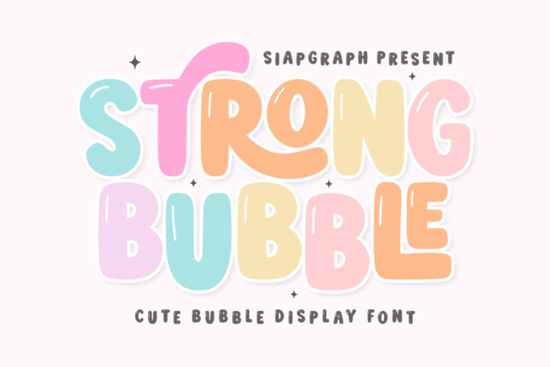
If you are designing graphics that need to bring joy immediately, typography plays a huge role. The Strong Bubble Font offers thick, rounded shapes that catch the eye without looking aggressive. It is ideal for anyone who needs to balance playfulness with clear readability. Whether you run a shop selling custom items or just enjoy making gifts for friends, having a typeface that works well across various materials makes your workflow smoother.
This specific font style features glossy highlights and chunky curves. Those design elements give it a modern yet friendly appearance. Many creators find that standard block letters feel too serious for certain projects, while thin script fonts might lose legibility when printed small. This typeface sits right in the middle, offering bold strokes that remain easy to understand even from a distance. Because it is crafted for high visibility, it translates well onto shirts, bags, and signs alike.
How can this typeface fit into my craft projects?
The versatility of this tool allows you to apply it to many different mediums. You will find it particularly useful when creating SVG cut files for vinyl plotters like Cricut or Silhouette machines. The clean construction means the cutter lines will follow the contours precisely, resulting in professional-looking decals. Personalized stickers are another major area where this style shines, especially for children’s items where cute visuals matter most.
Parents often look for decor that reflects their child’s personality in the home. Nursery wall art created with this face provides a backdrop that feels welcoming rather than stark. For seasonal events, think about how it performs during specific times of the year. If you are planning invitations for a birthday bash, the rounded edges echo the shape of balloons naturally. When summer parties roll around, swapping out standard text for something brighter can boost engagement.
Sometimes you might want to mix styles for a balanced layout. For example, if you prefer sharper angles for headers, you could pair this display face with a classic serif for body text. However, if you want a unified look, mixing it with other whimsical options can enhance the theme. You might compare the vibe here to a collection designed around sweet treats to see how different flavors affect your final composition.
- Personalized Stickers: Add names to lunchboxes or planners.
- Print-on-Demand Products: Upload directly to sites for apparel printing.
- Kids Party Decorations: Banners, cupcake toppers, and table numbers.
- Social Media Graphics: Create posts that stop the scroll.
What design aesthetics does it complement best?
Color choice matters as much as the font itself. Bright primary colors work exceptionally well because they reflect the energy inherent in the letterforms. When paired with pastel tones, it softens the message for gentler audiences. This approach is perfect for baby announcements or spring-themed events where optimism is key. If you are working on a project that requires a bit more punch, such as a back-to-school campaign, a darker background can make the letters pop significantly.
Some designers prefer to stick to a single aesthetic throughout a brand. If your portfolio leans towards rugged or outdoor themes, you might explore other styles like those found in rustic collections to maintain consistency. On the other hand, if your focus is on youthful energy, combining this with other candy-inspired designs creates a cohesive palette. Imagine a setup similar to a fruity soda advertisement where sweetness defines the visual language.
For students or educational materials, the clarity is paramount. Younger readers need large, distinct characters to identify words quickly. While collegiate styles serve older demographics, lighter, friendlier approaches better engage elementary-aged children. If you are building a series of worksheets, you could alternate between functional fonts and this display option to keep interest levels high without sacrificing readability.
Where can I find alternative styles for variety?
No single typeface covers every need forever. As your projects evolve, you may encounter situations requiring a shift in mood. Sometimes you might need something stronger and more structured. In that case, looking into heavy weight options designed for academic settings can provide the weight you need for titles while keeping the rest of the design light. Other times, you might want to explore fresh, citrus-like brightness to match a summery theme.
Rural or farmhouse aesthetics represent a completely different direction entirely. Characters designed with wooden textures or rough edges suit barn weddings or harvest festivals perfectly. By knowing where to locate these specific resources, you can pivot quickly when a client requests a change in tone. Having access to a wide range of display styles ensures you never get stuck with a look that doesn't fit the brief.
- Mix Sparingly: Pair with complementary fonts like farm-style scripts or vintage varsities only if the theme aligns.
Following these steps helps streamline the creative process so you spend less time troubleshooting and more time making art.